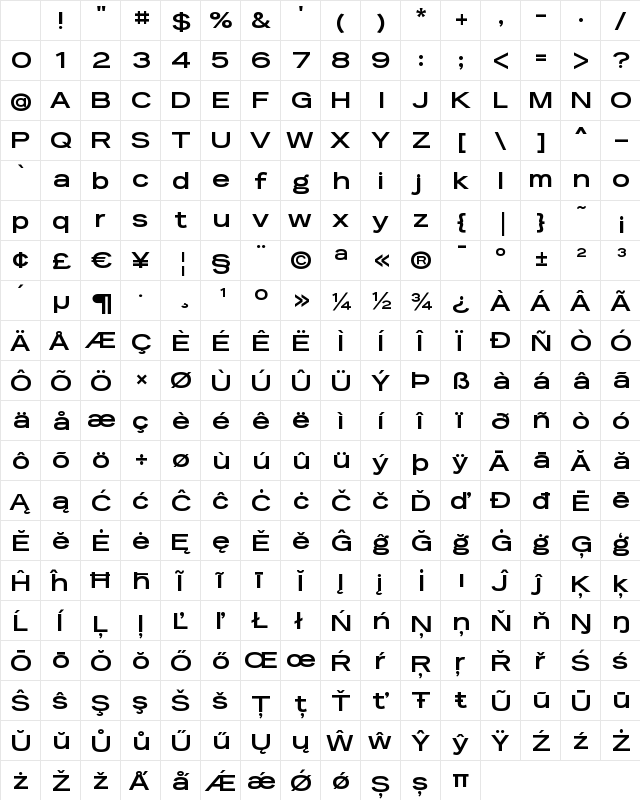
Reservation Wide is a composed and adaptable typeface that performs quietly and consistently across a wide range of design contexts. Its bold stroke weight gives it real presence on the page.